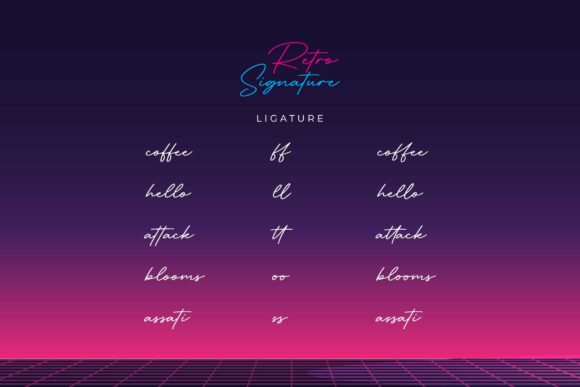
Retro Signature is a casual handwritten font, carefully handcrafted to become a true favorite. It futures a classy and contemporary style that will take your designs to the next level!
Retro Signature Font